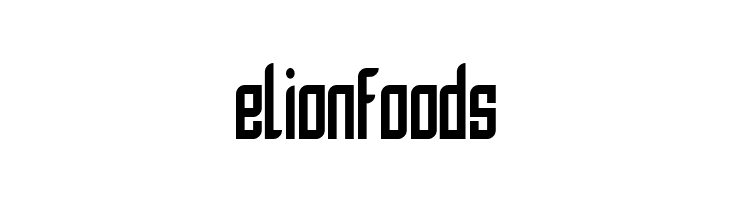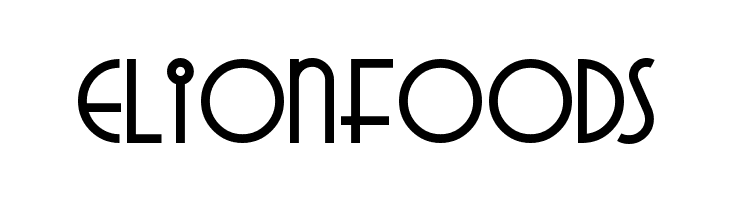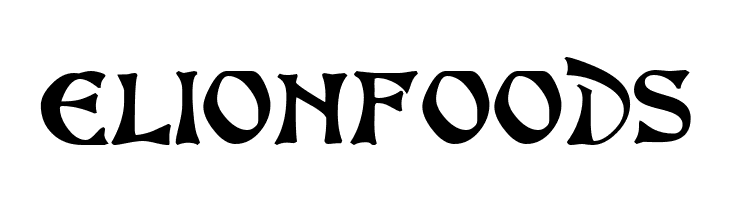
A condensed, geometric font with a modern, technical style.
A modern, geometric font with bold, rounded shapes and playful elements.
A geometric, monospaced font with a digital, tech-inspired aesthetic.
A modern, geometric font with consistent stroke width and rounded edges.
A modern, sleek font with tall, narrow characters and a clean, minimalistic style.
An artistic and decorative font with vintage and classical influences.